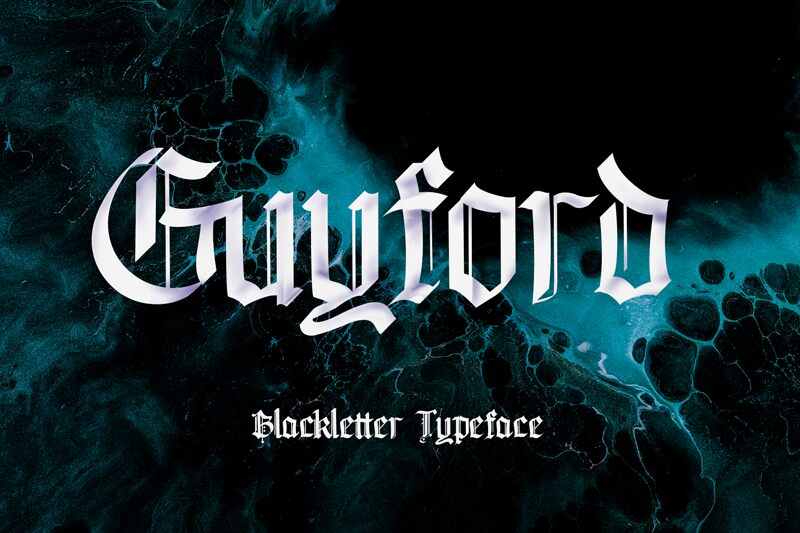
GuyfordBlackletter
Guyford is an incredibly bold and cool-looking blackletter font designed by Mofr24. This font is ideal for writing legal documents, letters, or pretty much anything else that requires a distinct and assertive touch.
MohamadFarhanRamadhan